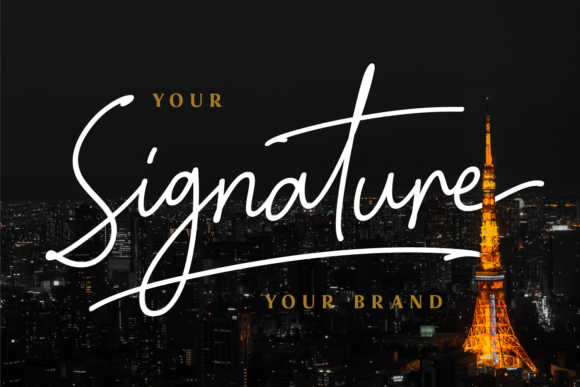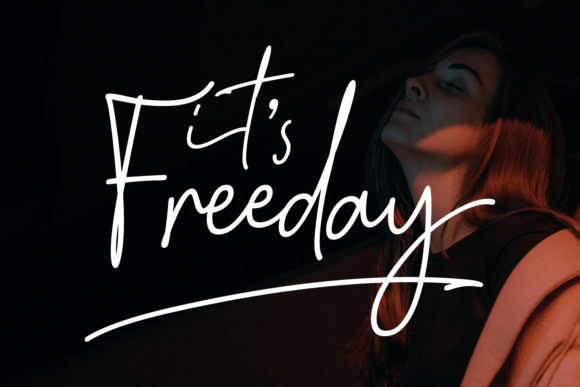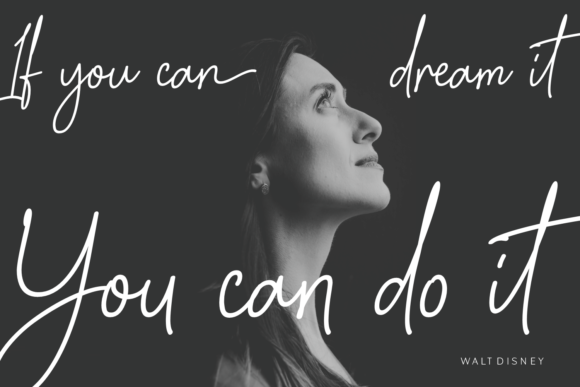
Introduction to Majosh Font
As a designer, have you ever stared at a blank canvas, waiting for the perfect font to bring your creative project to life? The search is over, because we’re excited to introduce you to the Majosh Font – a stunning script font that’s about to revolutionize your design game!
This elegant font is more than just a pretty face; it’s a game-changer for designers who crave high-quality, unique typography. With its flowing characters and seamless transitions, the Majosh Font adds an extra layer of sophistication to any design. Whether you’re working on a project that requires a transparent background or a design resource that demands an exclusive look, this font is the perfect solution.
Key Features of Majosh Font
- High-quality design resource ideal for creative projects, offering a unique and stylish touch.
- Comes with a transparent background, making it easy to customize and integrate with various design elements.
- Features a large character set, making it suitable for a wide range of languages and creative projects.
- Designed with a high resolution of 300 DPI, ensuring crisp and clear text display.
Honest Review: Majosh Font
- What works well: ✨ The Majosh Font is incredibly versatile and can be used for a wide range of design projects, from logos to brochures. Its clean and modern design makes it perfect for both digital and print media.
- What works well: ✨ The font is highly customizable, allowing designers to adjust the spacing and style to suit their specific needs.
- ⚠️ The font may not be suitable for designs that require a transparent background, as it can be quite bold.
- ⚠️ Some users may find the font to be a bit too playful, which may not be suitable for more formal or professional designs.
Overall, I’m thoroughly impressed with the Majosh Font. Its high quality and versatility make it an excellent design resource for any creative project. With a few tweaks, it can be used to create truly unique and eye-catching designs.
Tips for Getting the Most Out of Majosh Font
Majosh Font is a versatile design resource that can be used in a variety of creative projects, including logos, business cards, brochures, and social media graphics. Its high-quality typography and transparent background make it perfect for creating eye-catching designs that grab attention.
Is the Majosh Font suitable for high-quality design projects?
Yes, the Majosh Font is designed to be a high-quality design resource, suitable for a wide range of creative projects, from print materials to digital displays. Its clean and modern design makes it an excellent choice for designers looking to add a touch of elegance to their work.